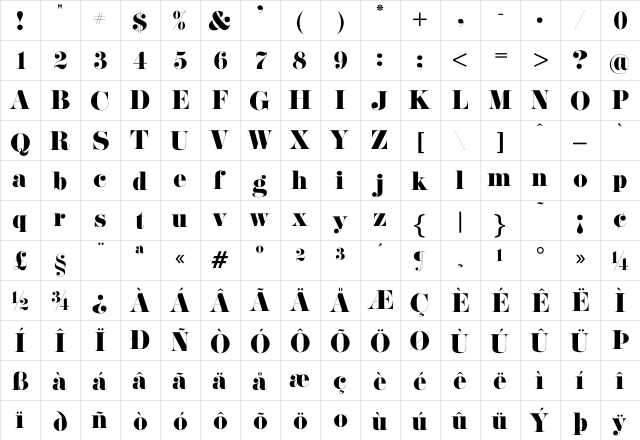
Pistilli Regular
Design Context for Pistilli Typeface
Pistilli takes a measured approach to typography — its balanced proportions and neutral character make it a reliable workhorse for both digital and print work.